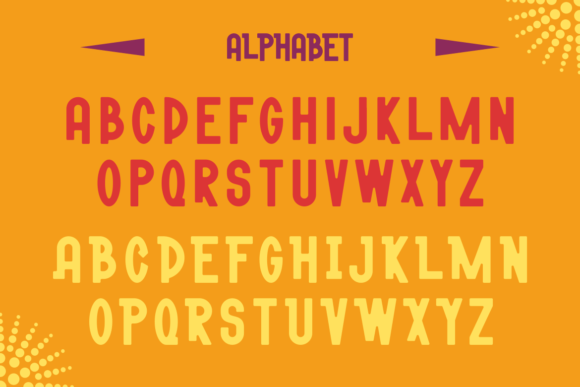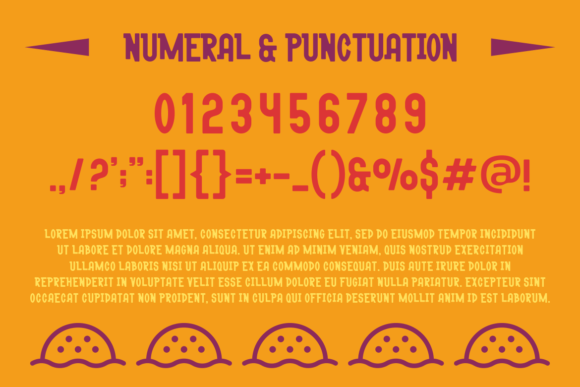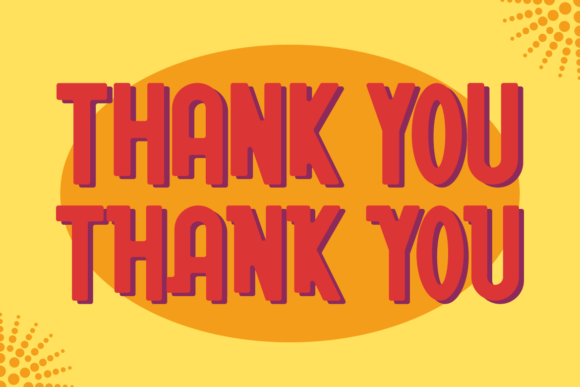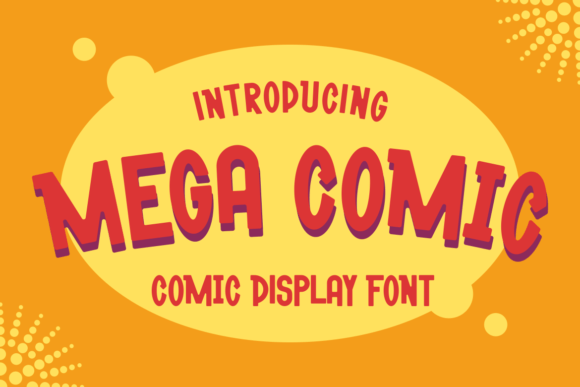
Introduction to Mega Comic Font
Mega Comic is a fun, cool, and unique display font.
Whether you use it for cartoon-related designs, children’s games, or just any creation that requires a friendly touch, this font will be an amazing choice .
Key Features of Mega Comic Font
Why Choose Mega Comic Font?